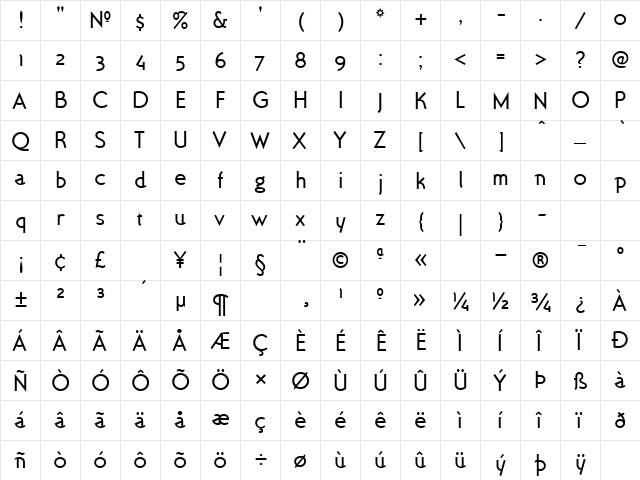
OttomatBook Regular
Design Context for OttomatBook Typeface
OttomatBook takes a measured approach to typography — its balanced proportions and neutral character make it a reliable workhorse for both digital and print work.